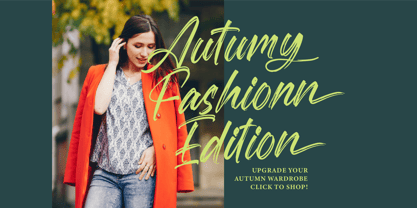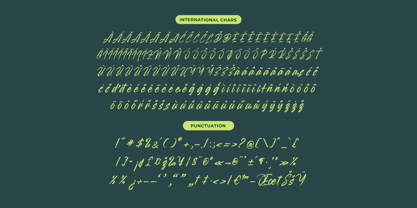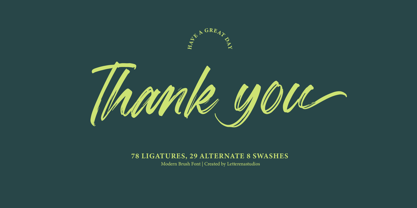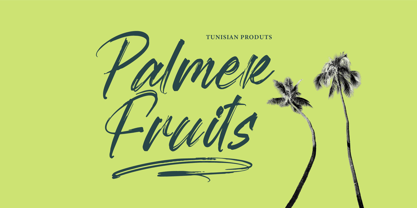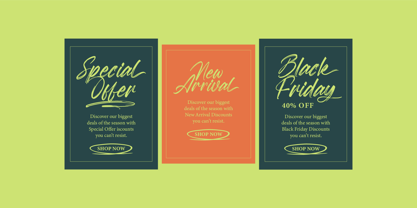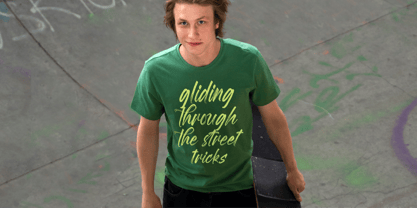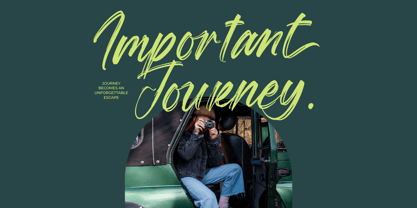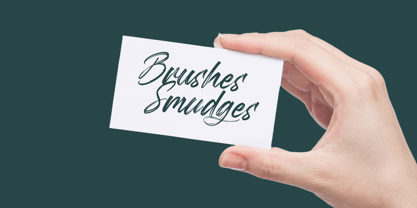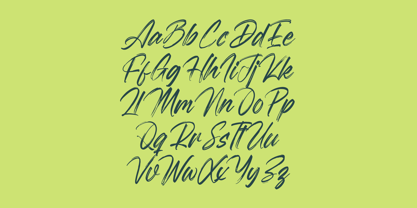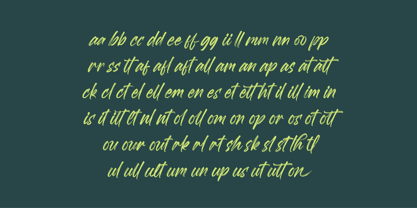
Megatter Breathin
The Megatter Breathin Font Family was designed by Heru Utama Putra and published by Letterena Studios. Megatter Breathin contains 2 styles and family package options.
Megatter Breathin - Modern Bruh Font , from Letterena, is a Luxury Script font, suitable for any projects such as: logos, branding projects, homeware designs, product packaging, mugs, quotes, posters, shopping bags, t-shirts, book covers, name card, invitation cards, greeting cards, label, photography, watermark, special events, and all your other luxury and beautiful projects that need a Luxury Script taste.